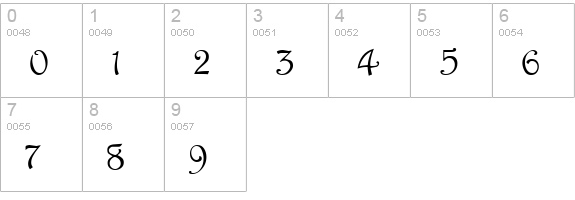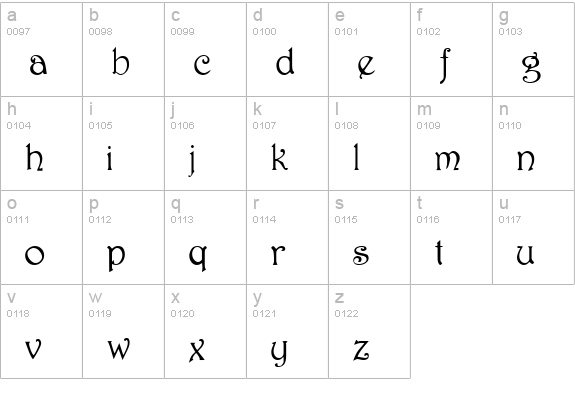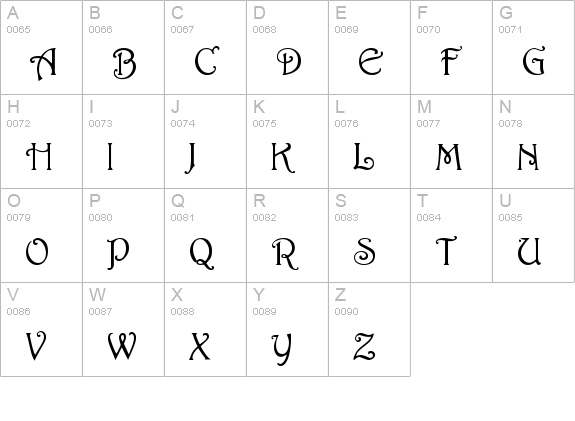
Harrington Regular Font Details
Harrington Regular is the standard, neutral variant in the Harrington typeface family \xE2\x80\x94 well suited to general body text, paragraphs, and standard typographic work.
Harrington Regular font is a timeless typeface that exudes elegance and sophistication. With its clean lines and classic strokes, this font is perfect for a wide range of design projects. Whether you're creating a logo, designing a website, or crafting a beautiful invitation, Harrington Regular font will add a touch of charm and refinement. What sets Harrington Regular font apart is that it is not only visually stunning, but also free to download. Yes, you read that right! You can freely access this exquisite font at FontsMarket.com. This means that you can enhance your designs without spending a dime, making it an ideal choice for both professional designers and hobbyists alike. With its generous letter spacing and versatile nature, Harrington Regular font is incredibly easy to read, ensuring that your messages are conveyed clearly and effectively. Its classic yet contemporary appeal makes it suitable for a wide range of applications, from formal business documents to personal creative projects. Whether you're looking to add a touch of sophistication to your branding materials or want to make a statement with your typography, Harrington Regular font is the perfect solution. Its clean and elegant design will captivate your audience and leave a lasting impression. So why wait? Download Harrington Regular font for free at FontsMarket.com and elevate your designs to new heights. With this stunning typeface at your fingertips, the possibilities are endless. Embrace the beauty of Harrington Regular font and let your creativity soar.